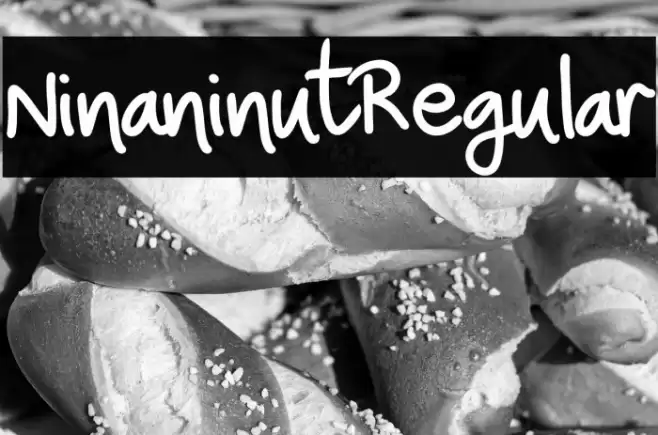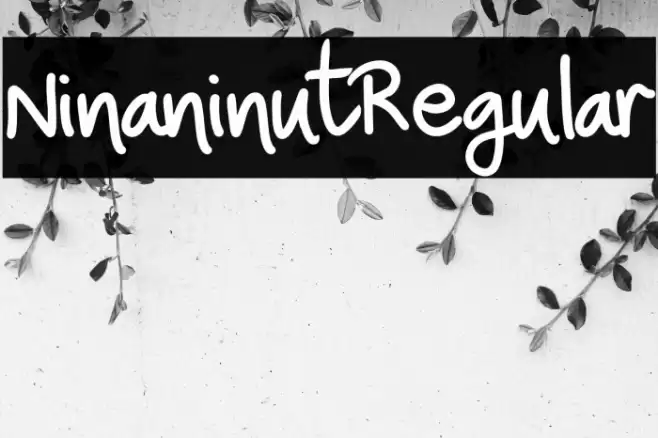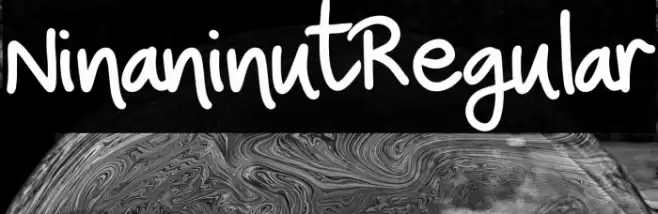
NinaninutRegular Font
NinaninutRegular Description
This font features a playful and casual handwritten style, characterized by its rounded and smooth letterforms. The uppercase and lowercase letters maintain a consistent flow, giving it a friendly and approachable appearance. The numerals and special characters are designed to complement the overall aesthetic, making it versatile for various applications. The strokes are uniform in thickness, providing a balanced and harmonious look. This font is ideal for projects that require a personal touch, such as invitations, greeting cards, or informal branding.
A playful handwritten font with smooth, rounded letterforms from Handwritten fonts.
- Proposed Projects: Ideal for invitations, greeting cards, informal branding, and personal projects.
- Overall Style: Casual
- Use Case: Headlines, Logos, Informal Text